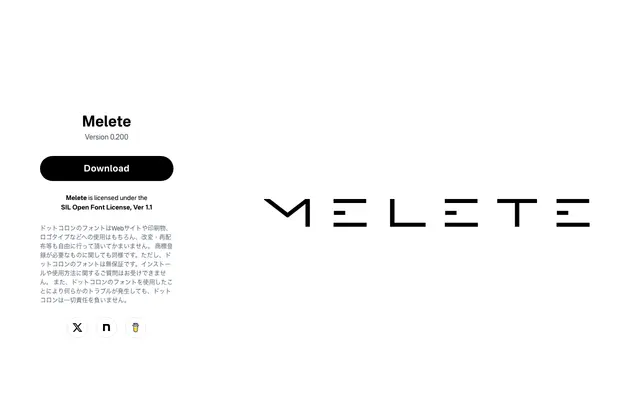
A squared geometric sans aimed at the aesthetic of science fiction film titles, drawing on Eurostile Extended and Bank Gothic for reference.
Designed with the atmosphere of sci-fi film titles in mind, Melete sacrifices some legibility in favour of generous spacing and a sharp, near-futuristic feel. The letterforms take cues from Eurostile Extended and Bank Gothic but push toward a more angular result. Currently a beta release covering basic uppercase and lowercase Latin, numerals and symbols; distributed free under the SIL Open Font Licence.
A geometric sans with squared, extended proportions referencing Eurostile Extended and Bank Gothic, giving it a hard-edged, near-futuristic character rather than the warmth of a humanist or neutrality of a grotesque.